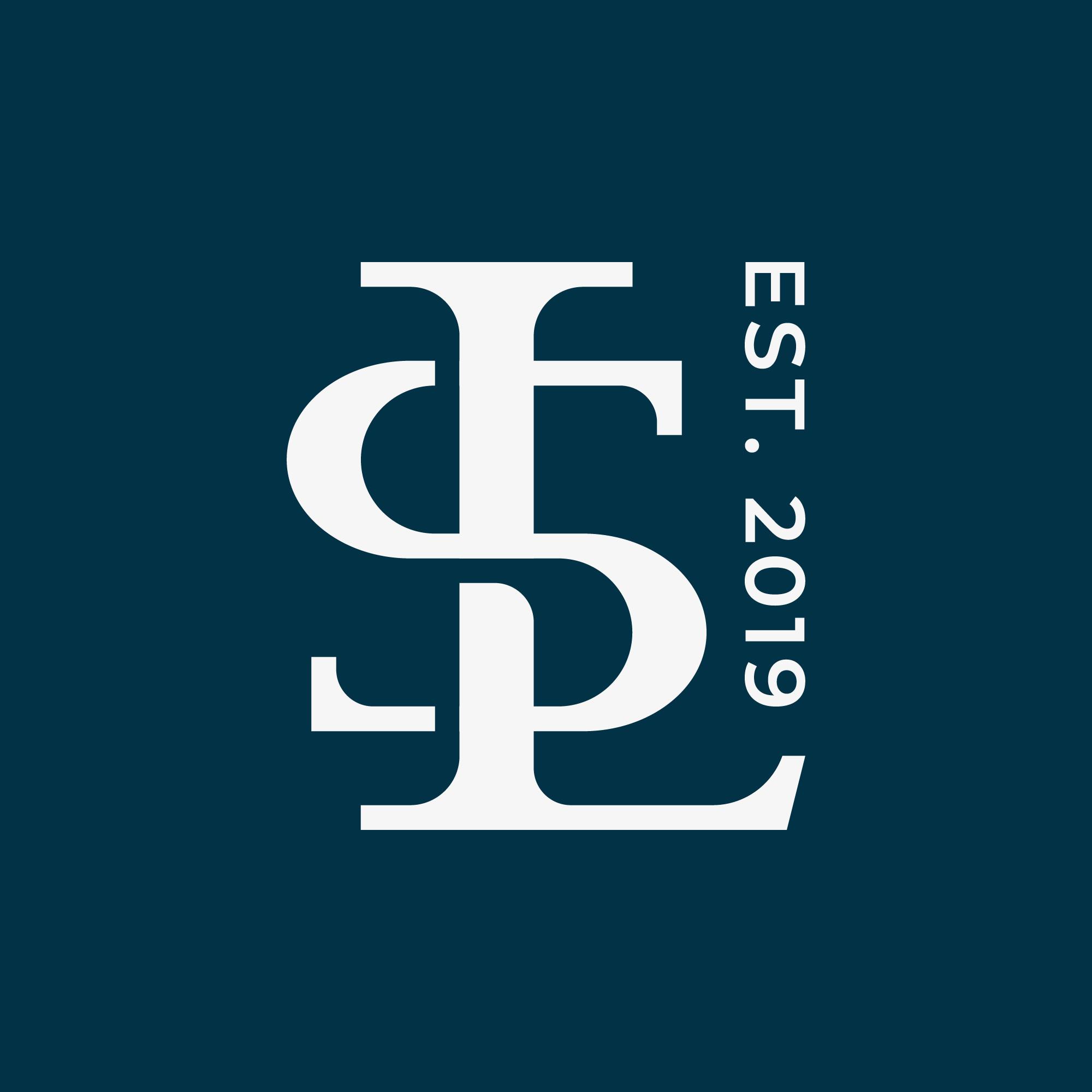
The Wolfflin Font Description
Create gorgeous and timeless designs with The Wolfflin, an interesting and unique display font.
Fall in love with its incredibly stylish look and use it for logos, quotes, invitations, business cards, power point presentations, and more!